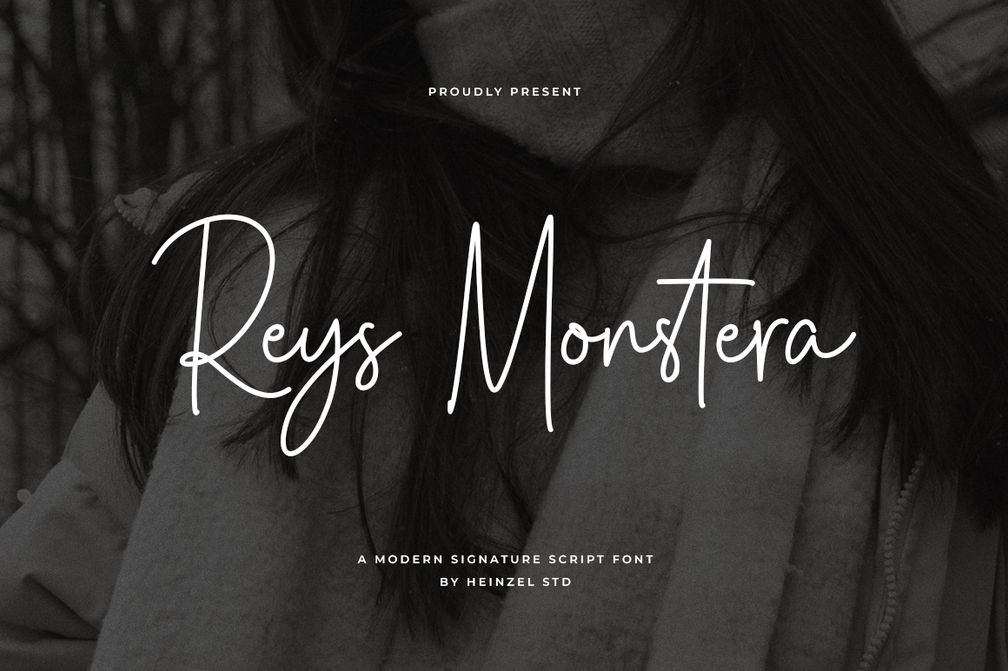
Reys Monstera Signature Font
Reys Monstera is a modern signature font, described by an elegant touch, perfect for your favorite projects. It looks stunning on wedding invitations, thank you cards, quotes, greeting cards, logos, branding, business cards, social media posts, magazines, marketing materials, and every other design that needs a handwritten touch. Fall in love with its incredibly distinct and timeless style and use it to create spectacular designs!